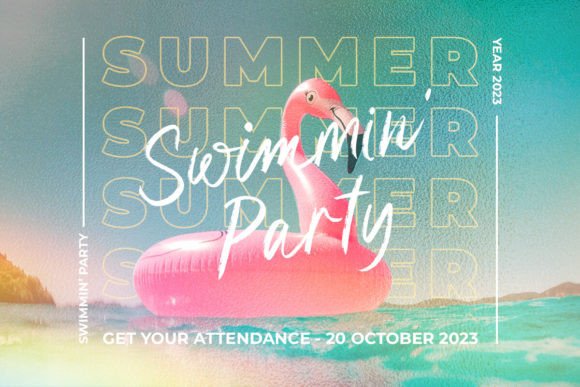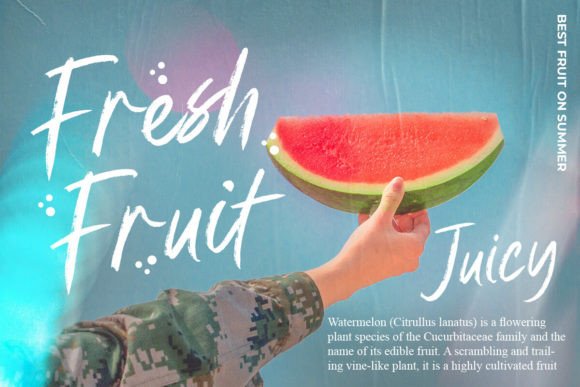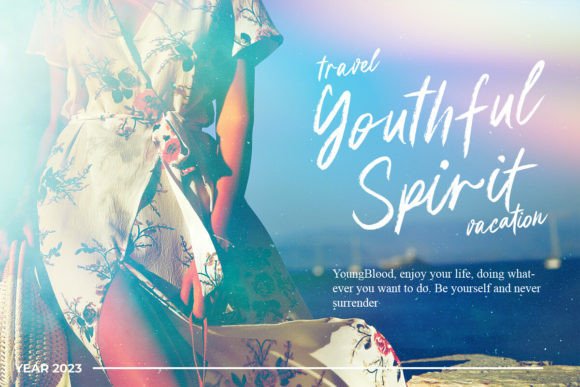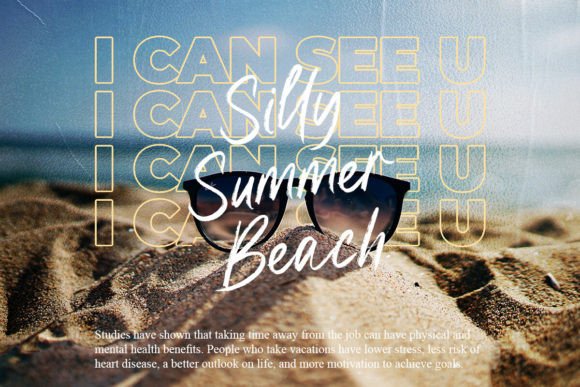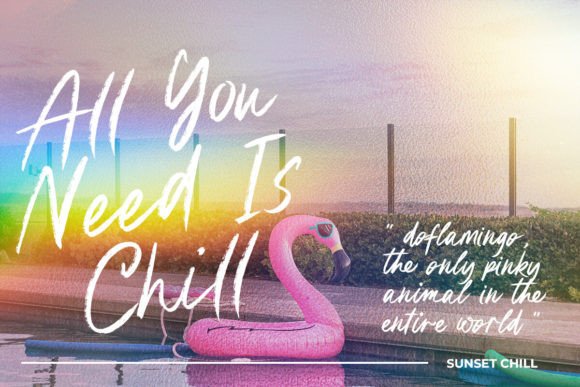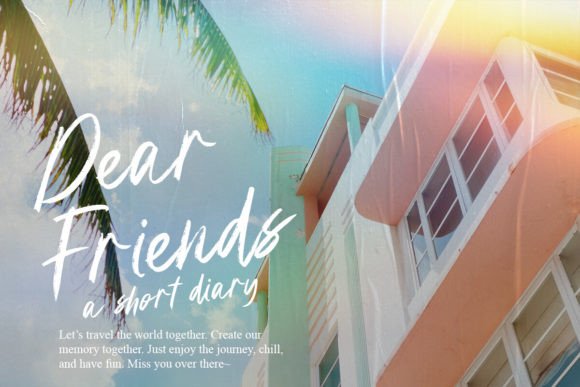
Introduction to Rathery Font
Do you remember the moment when you stumbled upon the perfect font for your creative project? It’s a feeling of excitement and relief, knowing that your design is going to be taken to the next level. For designers, finding the right font can make all the difference between a good and great design. This is where the Rathery Font comes in – a beautiful, high-quality, and textured handwritten script font that will give your design a unique and summer-inspired vibe.
As a valuable design resource, the Rathery Font is perfect for various applications, from posters and invitations to branding and social media content. Its beautiful shape and detailed texture make it an ideal choice for logos, headlines, and body text in magazines. Plus, with its transparent background, you can easily place it over any image or background, giving you endless design possibilities.
Key Features of Rathery Font
- High-quality design resource ideal for creative projects, offering a unique aesthetic.
- Includes 5 font styles, each with its own distinct characteristics and uses.
Honest Review: Rathery Font
I recently had the chance to experiment with the Rathery Font, and I’m excited to share my thoughts on this design resource.
What works well is the clean and elegant aesthetic of this font, making it perfect for creative projects that require a touch of sophistication. The high quality of the font is evident in its smooth lines and well-balanced typography.
- ✨ High quality and detailed design
- ✨ Suitable for a variety of creative projects
- ✨ Transparent background for easy editing
However, I did encounter some limitations. The Rathery Font seems to be best suited for titles and headings, as its readability may decrease at smaller font sizes. Additionally, some users may find the font a bit too minimalist, which may not be ideal for all design projects.
- ⚠️ Best suited for titles and headings
- ⚠️ May not be ideal for all design projects
- ⚠️ Limited readability at smaller font sizes
Overall, I think the Rathery Font is a great addition to any designer’s toolkit, offering a unique and stylish design option for creative projects. While it may have some limitations, its high quality and versatility make it a worthwhile download.
Tips for Getting the Most Out of Rathery Font
Experiment with different font sizes, colors, and styles to create a unique look. Use the Rathery Font in combination with other design elements, such as images and shapes, to add depth and interest to your design.
The Rathery Font is perfect for creating designs for social media, presentations, and marketing materials. Its high quality and versatility make it a great design resource for any creative project.